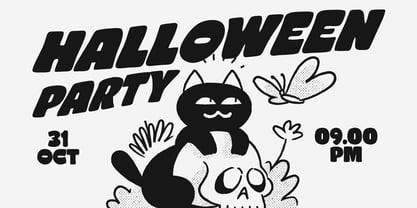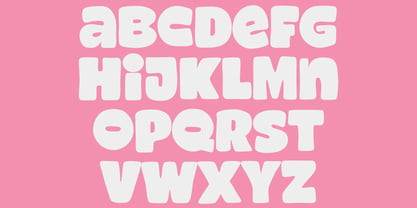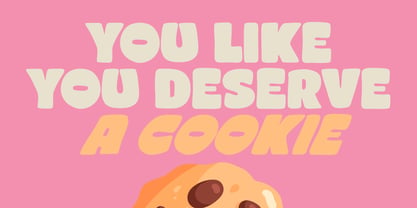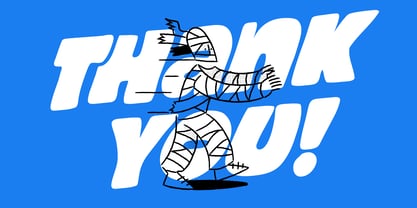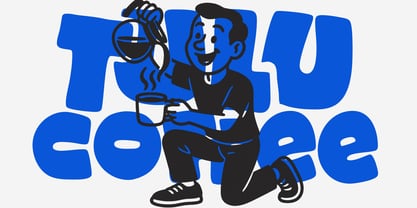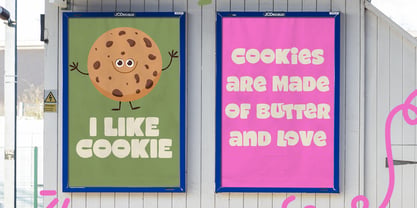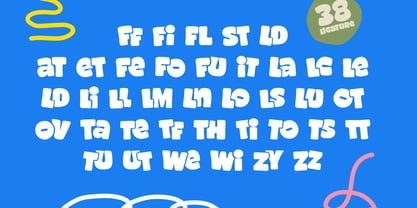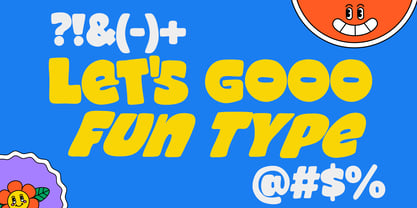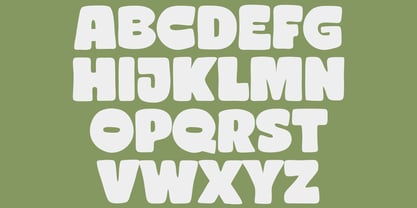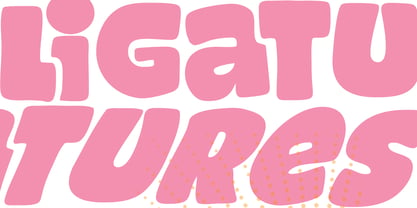
Stellost
by Get Studio
The Stellost Font Family was designed by Hermansyah and published by Get Studio. Stellost contains 2 styles and family package options. More about this family
Stellost is a playful display typeface designed to radiate joy and friendliness. With its chunky, soft-edged letterforms and organic rhythm, Stellost brings a sense of warmth and charm to any visual project. Perfect for posters, branding, packaging, or social media, this typeface captures the essence of fun with its bouncy curves and inviting shapes. It’s a type that instantly makes any design more approachable and expressive. Available in Regular and Slanted styles, Stellost gives you the flexibility to mix and match moods — from steady and bold to dynamic and lively. It also comes with 38 unique ligatures for smoother letter combinations, adding even more personality to your typography. Whether you’re crafting cookie packaging, comic titles, or cheerful campaigns, Stellost makes your words smile.
Designers: Hermansyah
Current Foundry: Get Studio